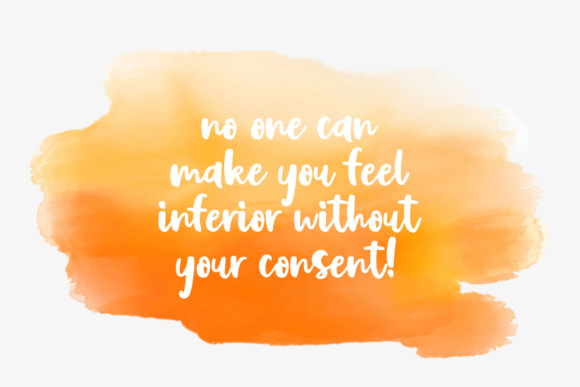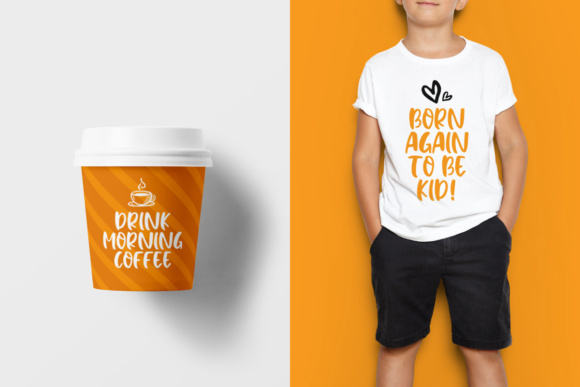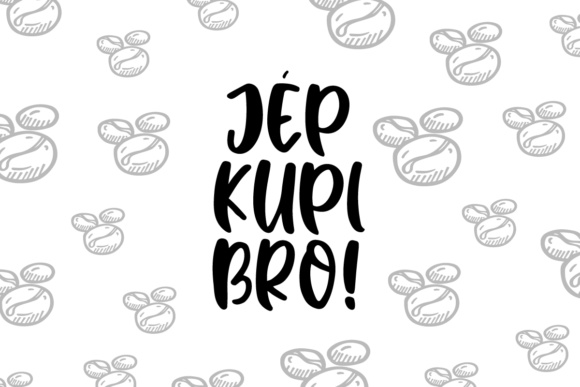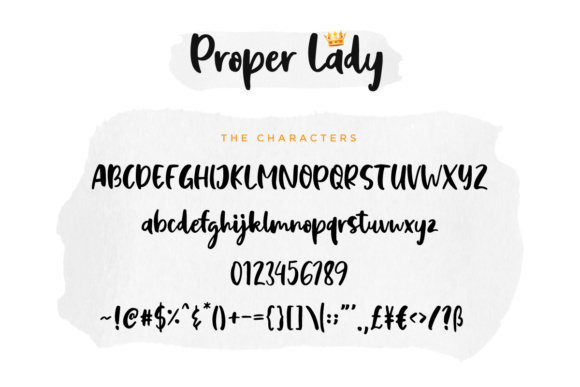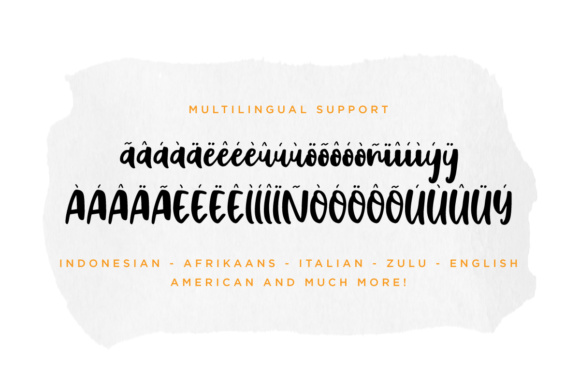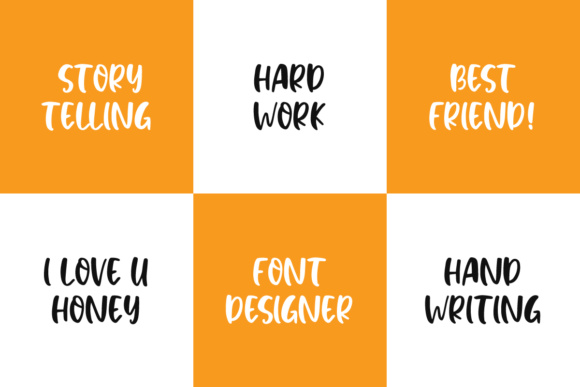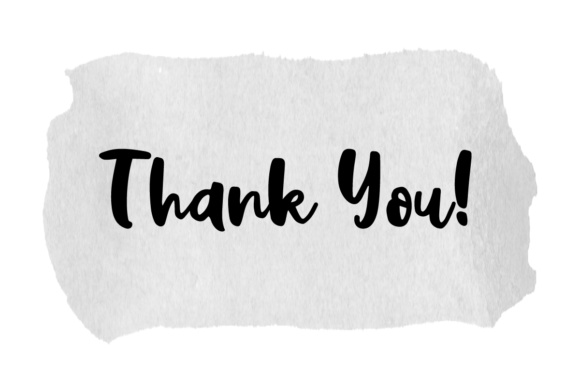
Proper Lady Font
About Proper Lady Font
The Proper Lady is a handwritten signature typeface. Its romantic handwritten look makes it the perfect fit for feminine logos, printed quotes, wedding invitation cards, social media headers, poster, product packaging and a lot more!